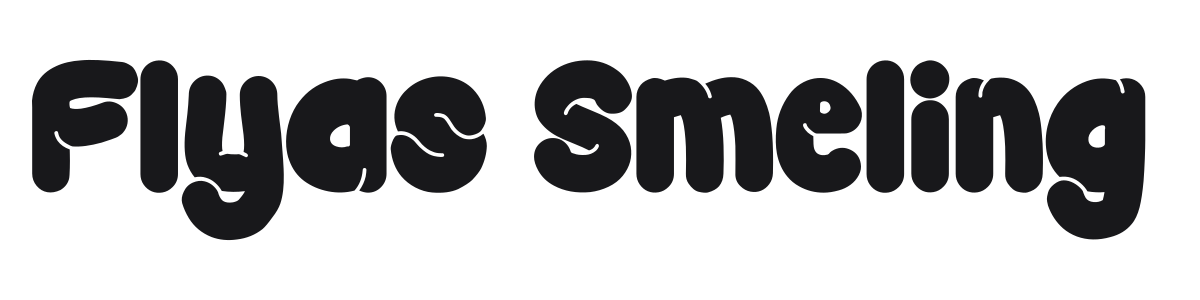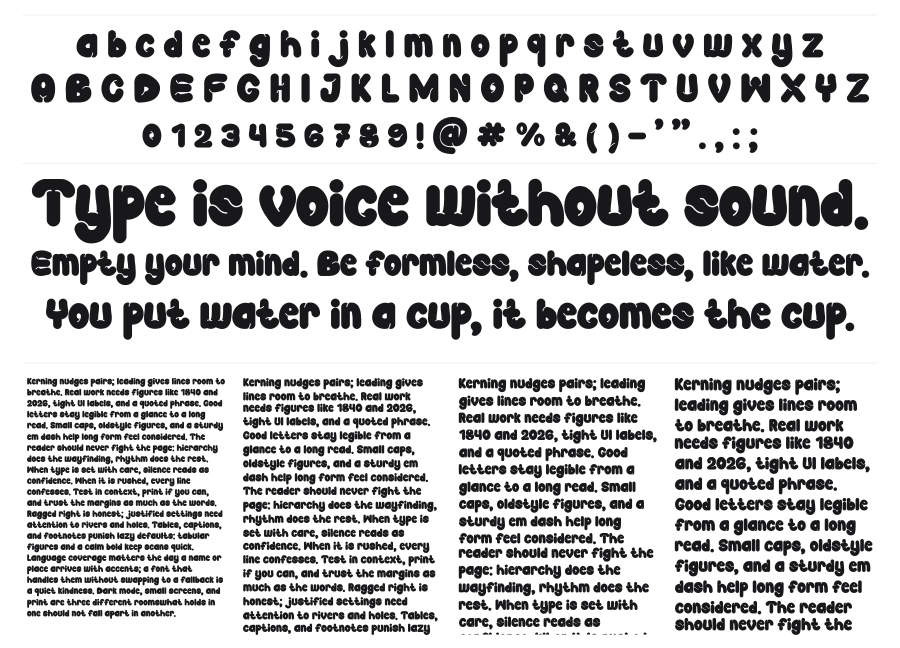
Flyas Smeling
Flyas Smeling is a heavy rounded display font with an unmistakable liquid, groovy character drawn from 1970s psychedelic lettering. Each character balloons outward with swollen curves and nearly closed counters, giving the whole word a molten, inflated rhythm. It works at large sizes for posters, packaging, and any project that needs bold retro energy.